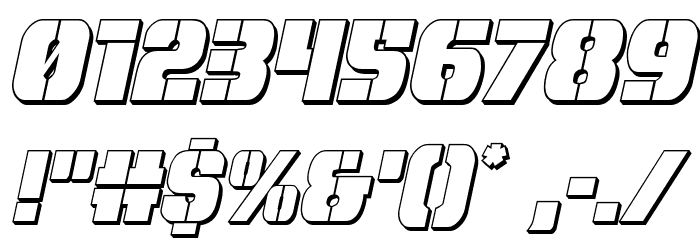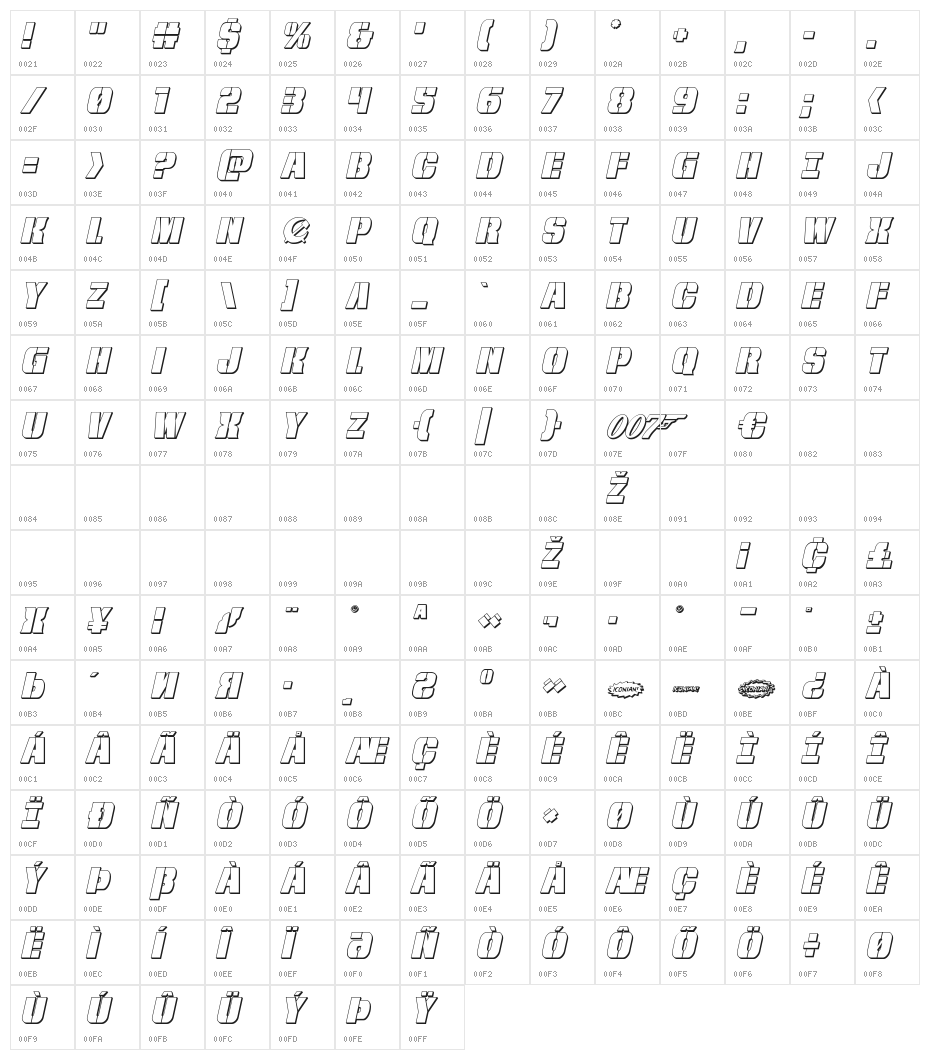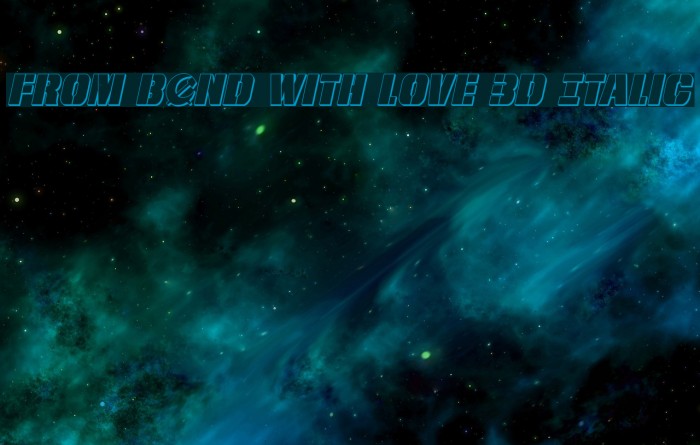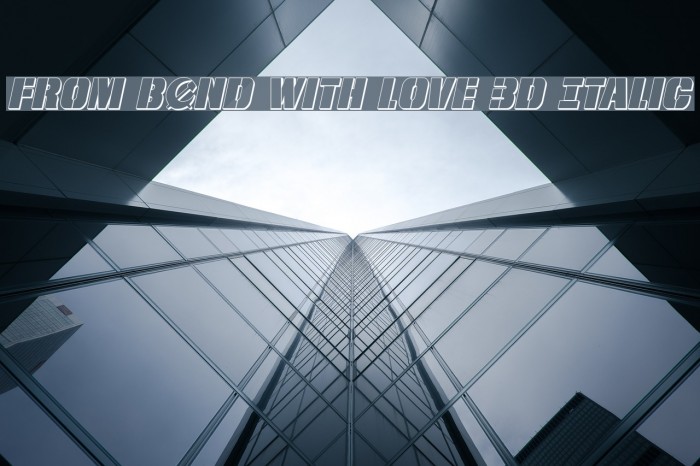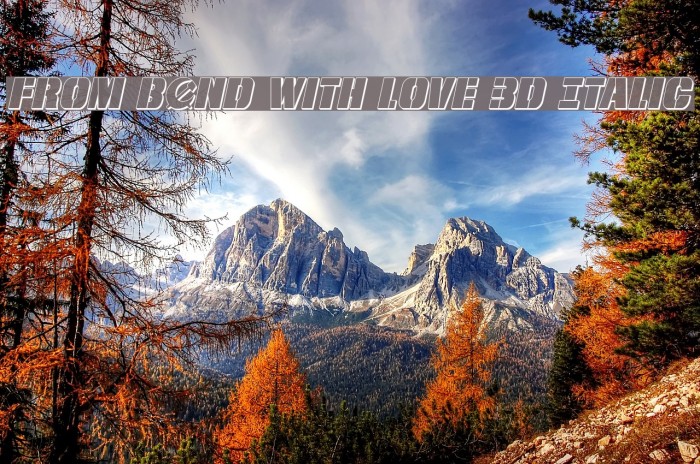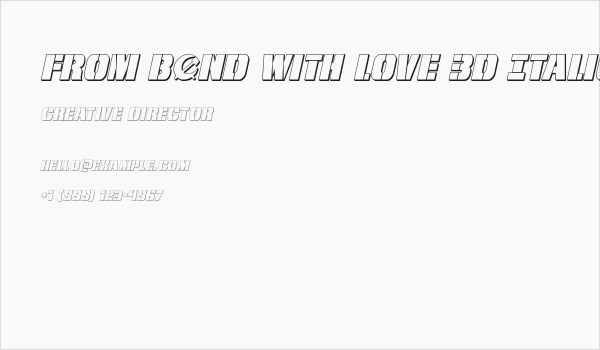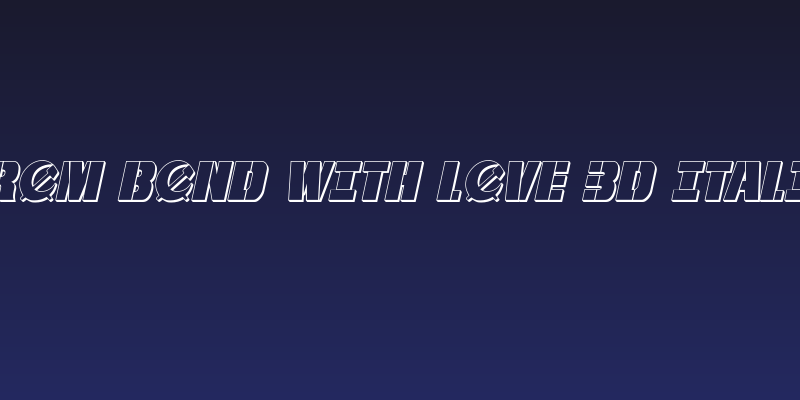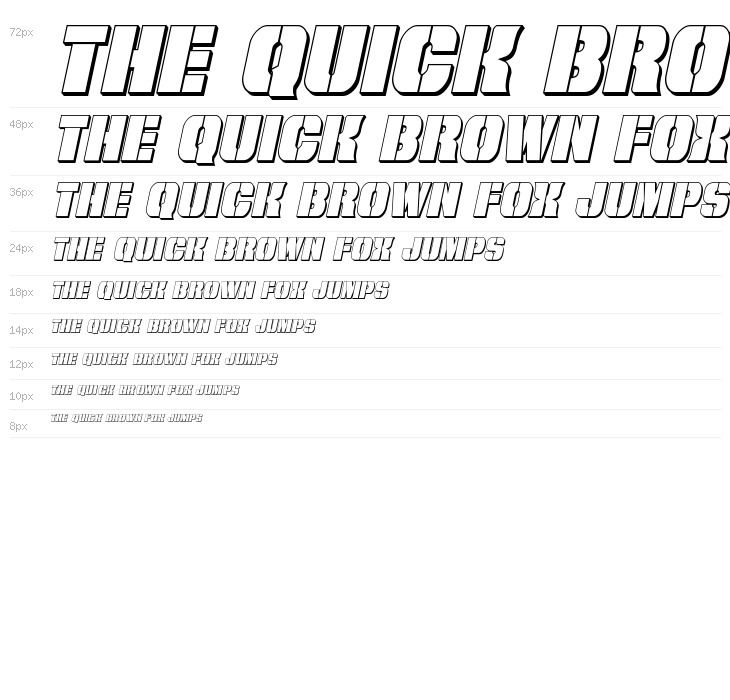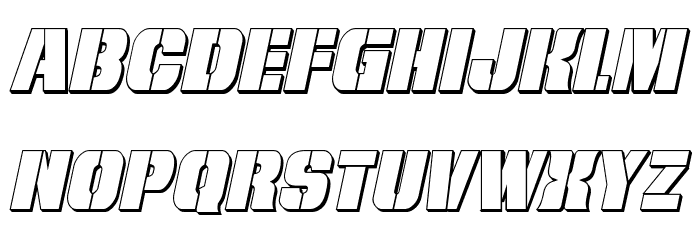
From BOND With Love 3D Italic Font
From BOND With Love 3D Italic Description
This font features a bold, three-dimensional design with an italic slant, creating a dynamic and impactful appearance. The characters are outlined with a shadow effect that enhances the 3D illusion, making each letter appear as if it is popping off the page. The uppercase and lowercase letters maintain a consistent style, with sharp angles and clean lines that contribute to a modern and futuristic aesthetic. The numbers and special characters are designed to match the boldness and dimensionality of the alphabet, ensuring a cohesive look across all text elements. This font is ideal for projects that require a strong visual presence and a sense of movement.